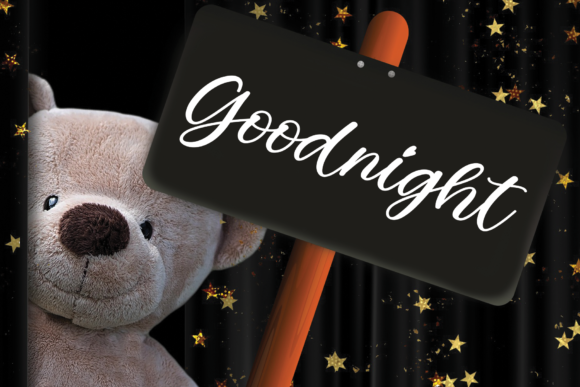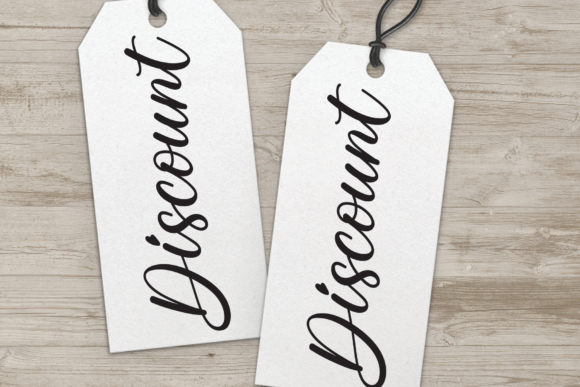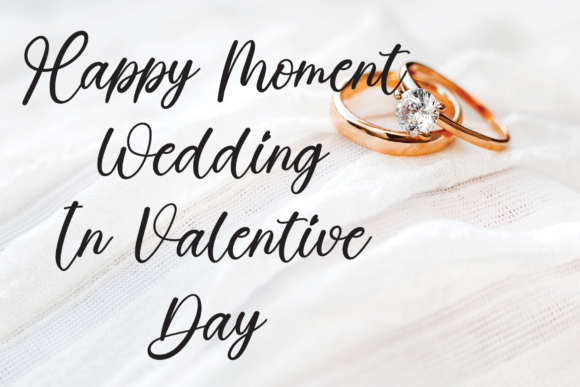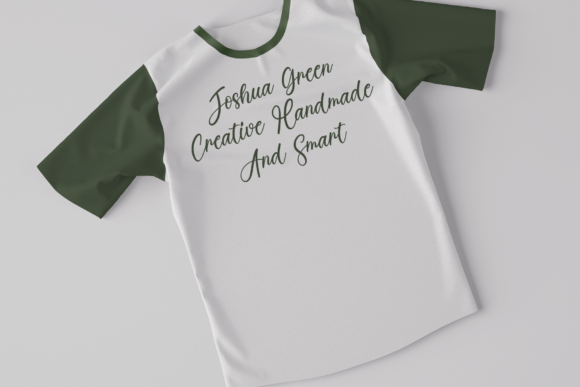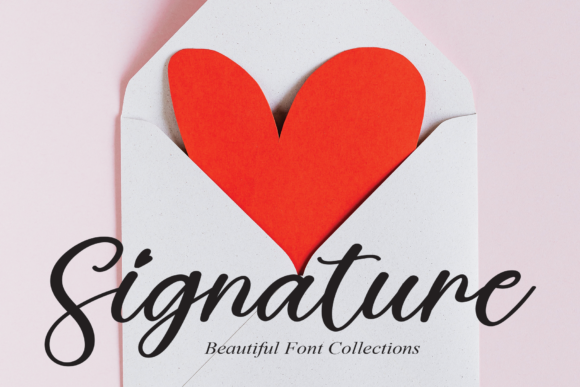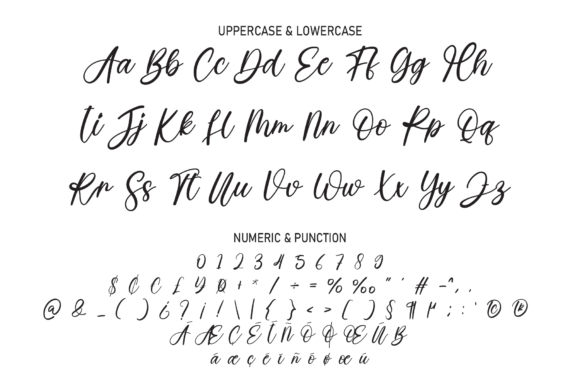
Dinner Font: A Romantic and Sweet Calligraphy Typeface
Are you a designer or crafter looking for a unique and elegant font to add a touch of romance and whimsy to your projects? Look no further than the Dinner Font, a beautiful calligraphy typeface that is sure to capture your heart. With its casual yet sophisticated charm, this font is perfect for a wide range of creative endeavors, from wedding invitations and dinner party decor to branding and packaging.
What is Dinner Font?
Dinner Font is a romantic and sweet calligraphy typeface with characters that dance along the baseline, creating a sense of movement and playfulness. Its elegant, cursive script is reminiscent of handwritten calligraphy, with a casual, yet refined touch that is sure to add a touch of sophistication to any project. The font’s unique and expressive lettering style makes it perfect for designs that require a personal and emotional touch.
Key Features of Dinner Font
- Romantic and Sweet: Dinner Font is a romantic and sweet calligraphy typeface that is perfect for projects that require a touch of elegance and whimsy.
- Casual yet Elegant: The font’s casual, yet refined touch makes it perfect for a wide range of creative endeavors, from wedding invitations and dinner party decor to branding and packaging.
- Characters that Dance: The font’s characters dance along the baseline, creating a sense of movement and playfulness that adds visual interest to any design.
- Endless Possibilities: With Dinner Font, the only limit is your imagination! The font’s versatility and expressiveness make it perfect for a wide range of creative projects.
Uses for Dinner Font
Dinner Font is a versatile typeface that can be used for a wide range of creative projects, including:
- Wedding Invitations: Add a touch of romance and elegance to your wedding invitations with Dinner Font.
- Dinner Party Decor: Use Dinner Font to create beautiful dinner party decor, including menus, place cards, and centerpieces.
- Branding and Packaging: Add a touch of whimsy and sophistication to your branding and packaging with Dinner Font.
- Stationery and Gift Tags: Use Dinner Font to create beautiful stationery and gift tags that are perfect for special occasions.
Tips for Using Dinner Font
Here are a few tips for using Dinner Font in your designs:
- Experiment with Different Sizes: Dinner Font looks beautiful in a variety of sizes, from large and bold to small and delicate.
- Play with Color: The font’s elegant, cursive script looks beautiful in a range of colors, from classic black and white to bold and bright hues.
- Add Decorative Elements: Consider adding decorative elements, such as flourishes and swashes, to give your designs an extra touch of elegance and whimsy.
Dinner Font is a beautiful and versatile calligraphy typeface that is perfect for designers and crafters looking to add a touch of romance and whimsy to their projects. With its casual yet elegant touch, this font is sure to capture your heart and inspire your creativity. Whether you’re designing wedding invitations, dinner party decor, or branding and packaging, Dinner Font is the perfect choice.